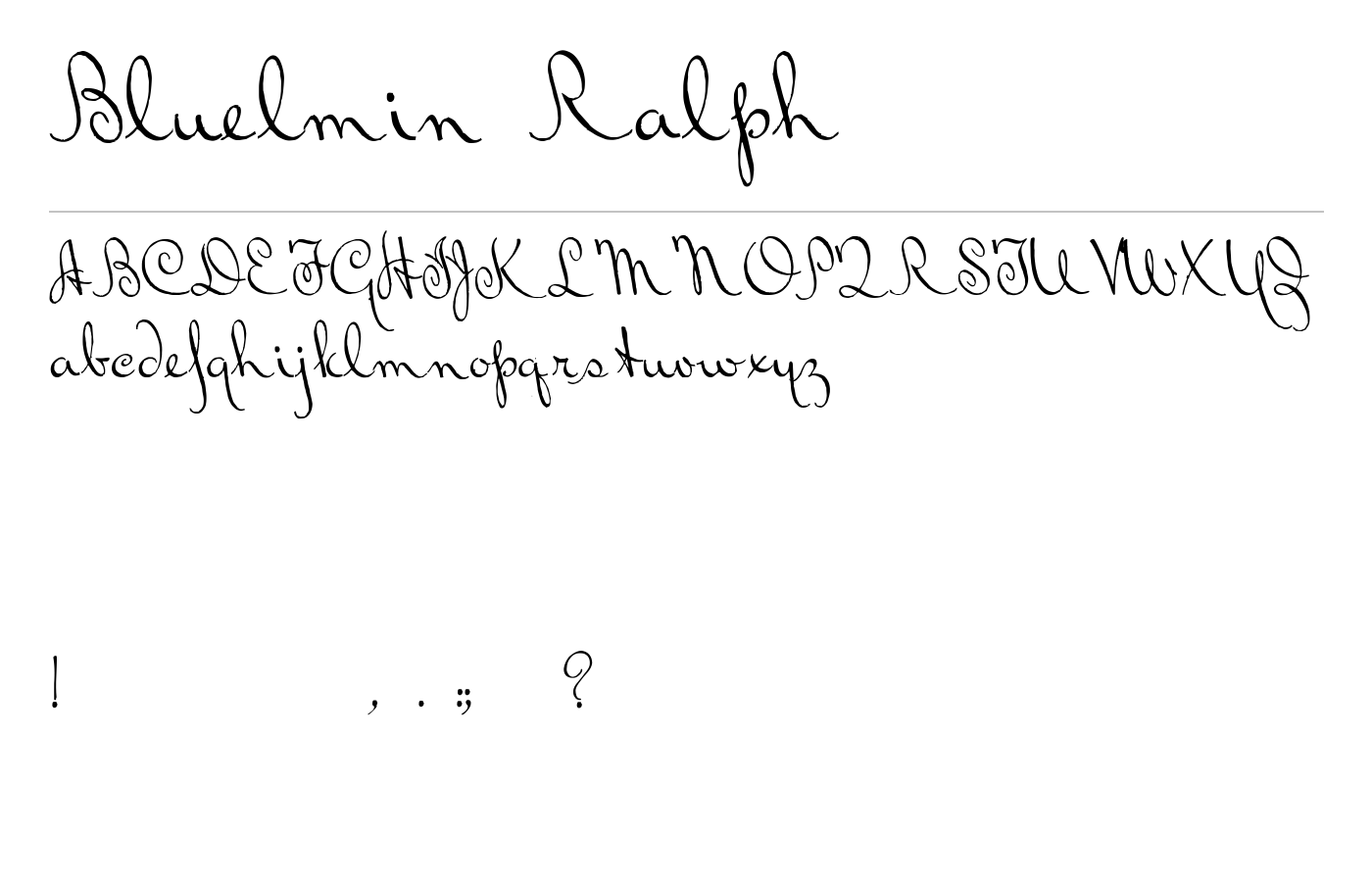
Bluelmin Ralph is a delicate, handwritten script font featuring thin, flowing strokes with a whimsical and artistic feel. Its elegant, looping letterforms evoke a playful yet refined charm, making it ideal for creative projects, personal invitations, or branding that seeks a unique, handcrafted touch. This font works best in decorative uses where a light and airy personality is desired, rather than for long body text.
Bluelmin Ralph Font
About Bluelmin Ralph Font
| Designer | Paulo W |